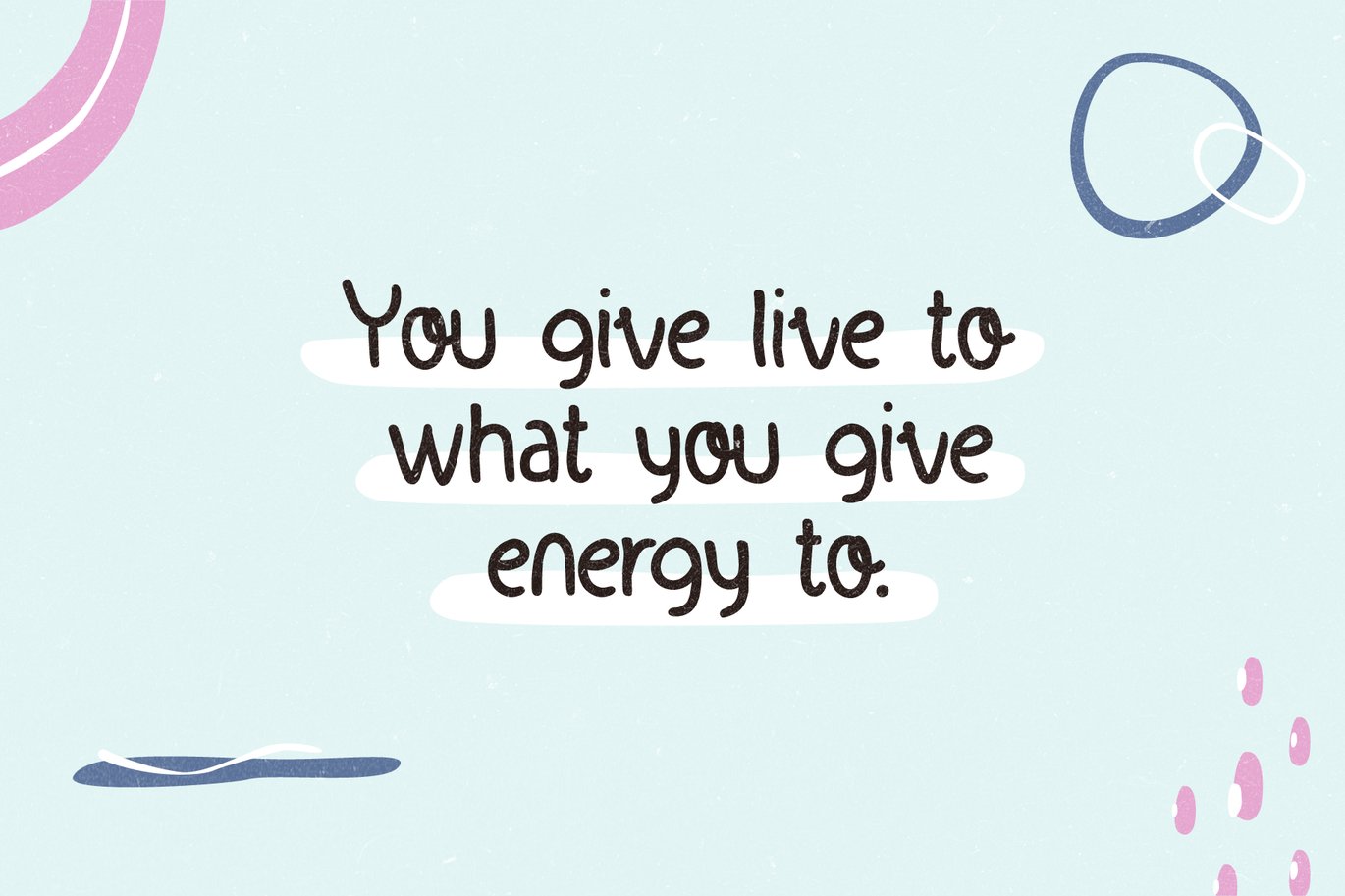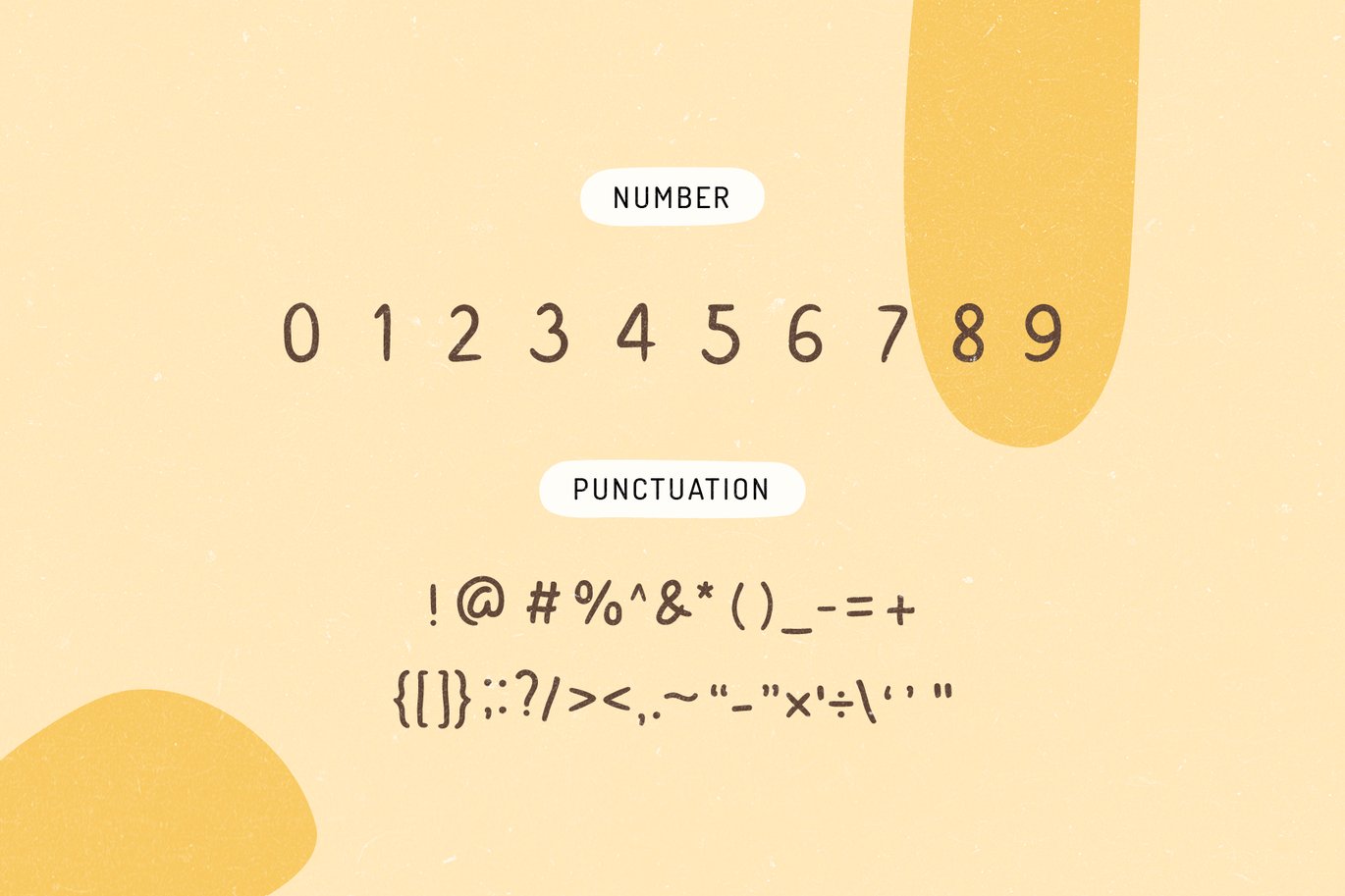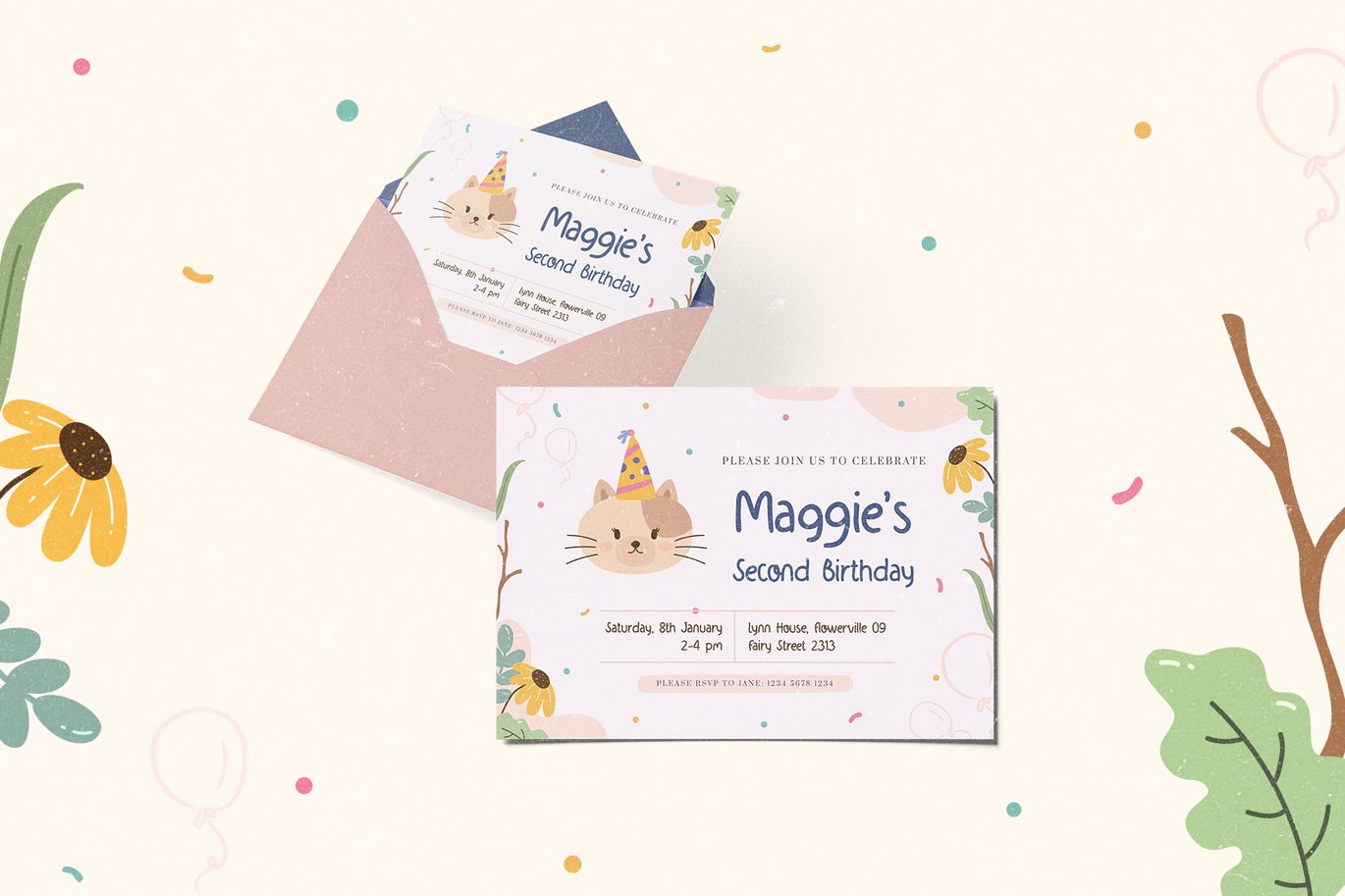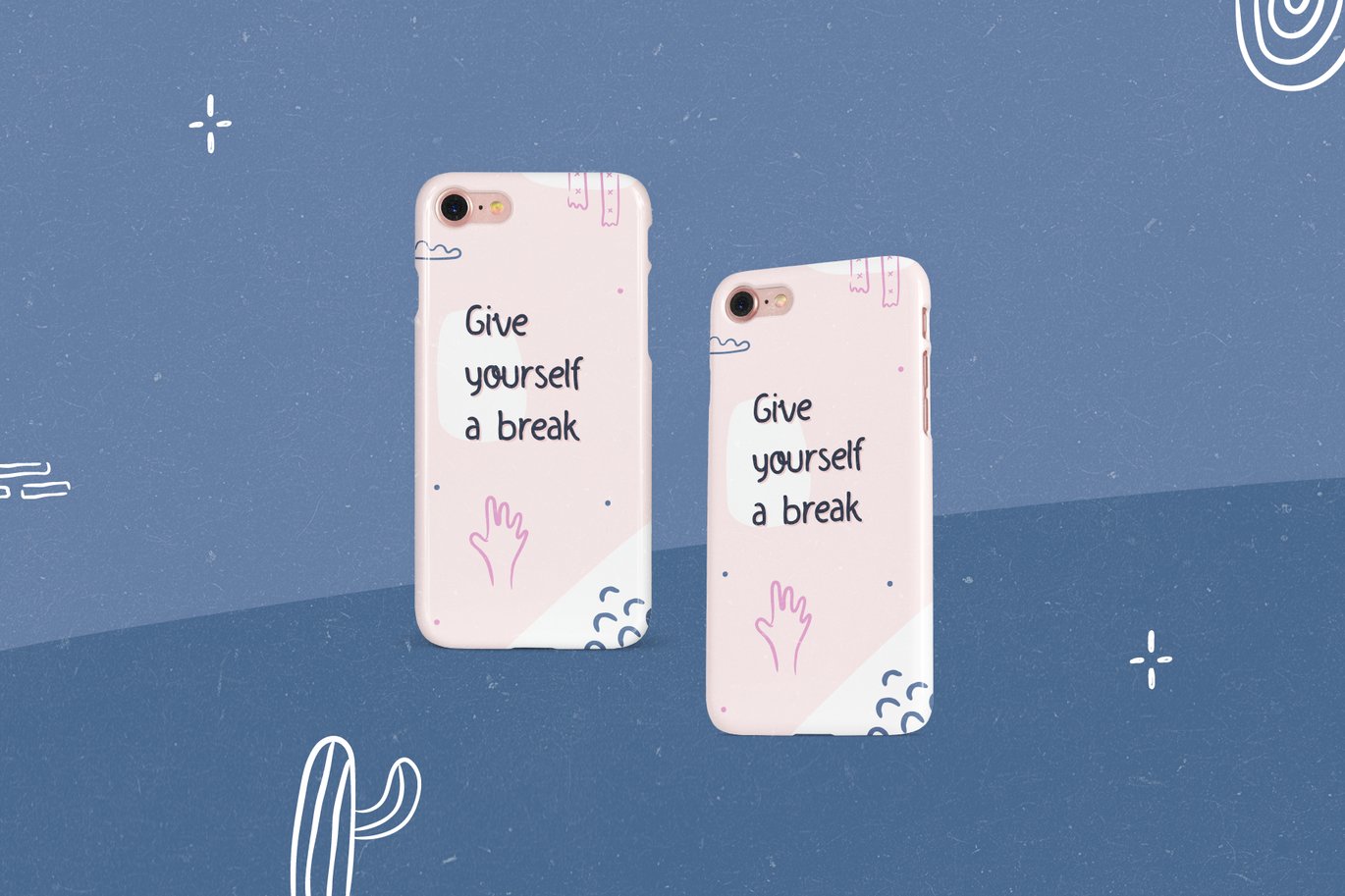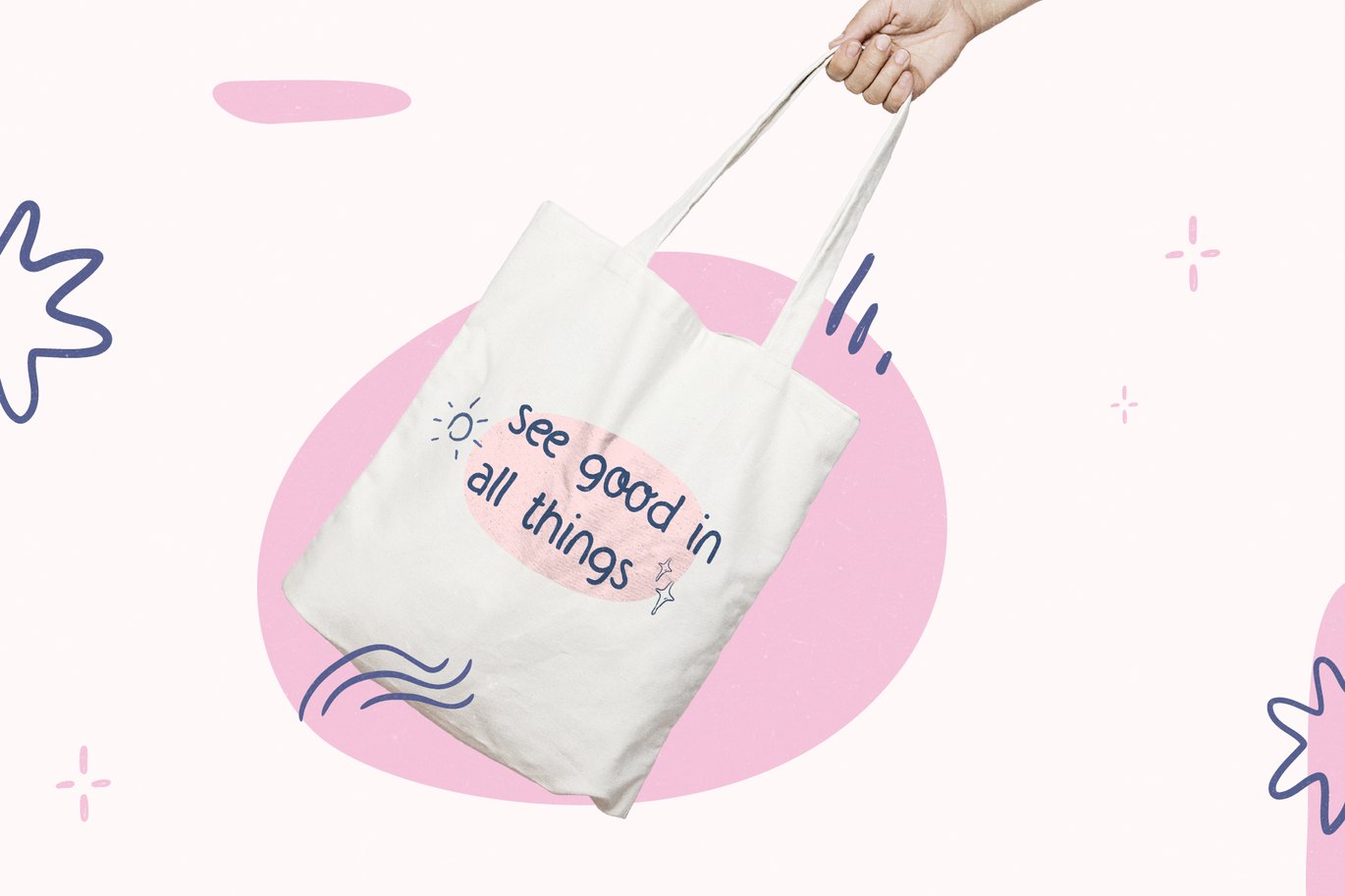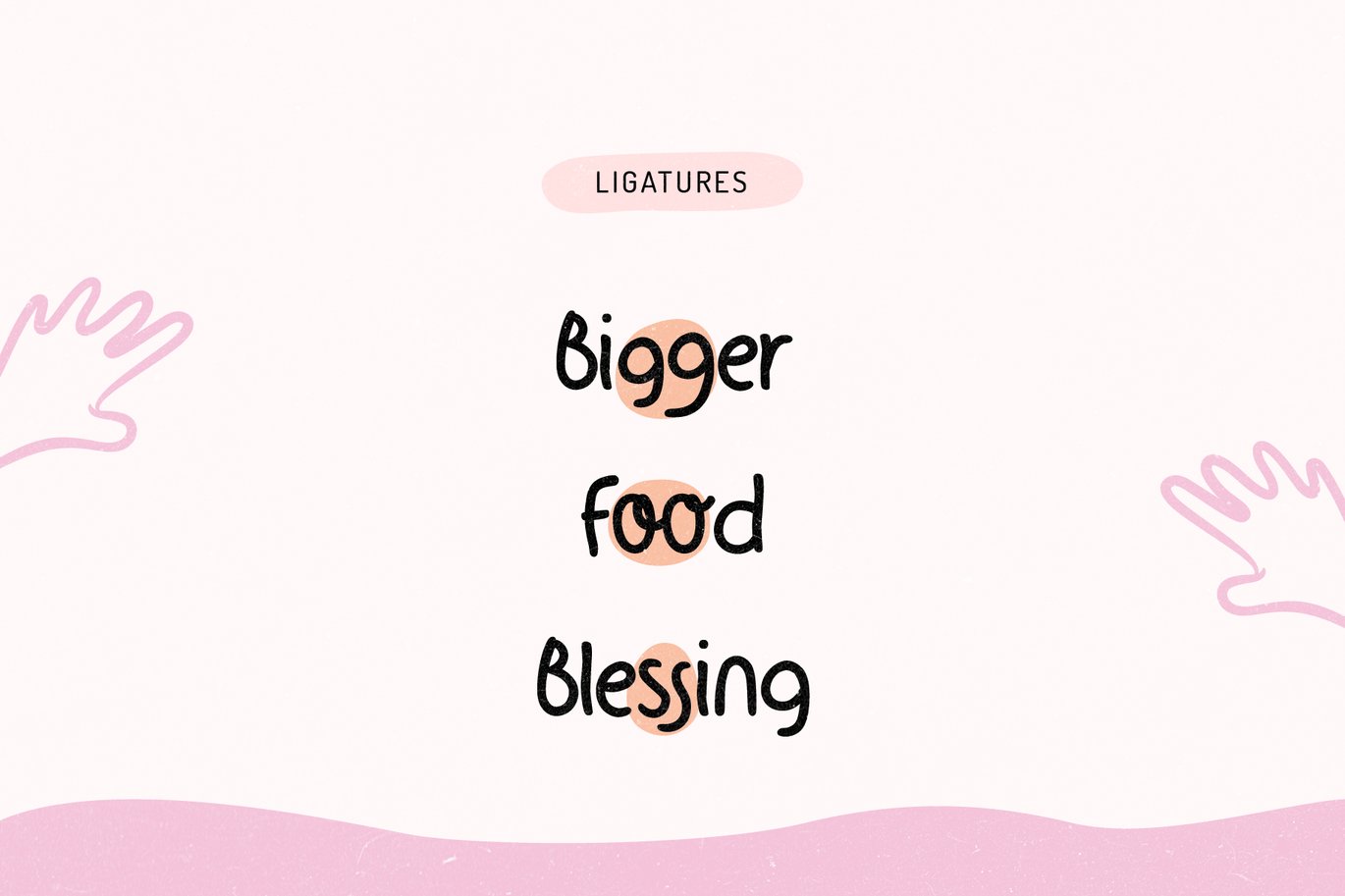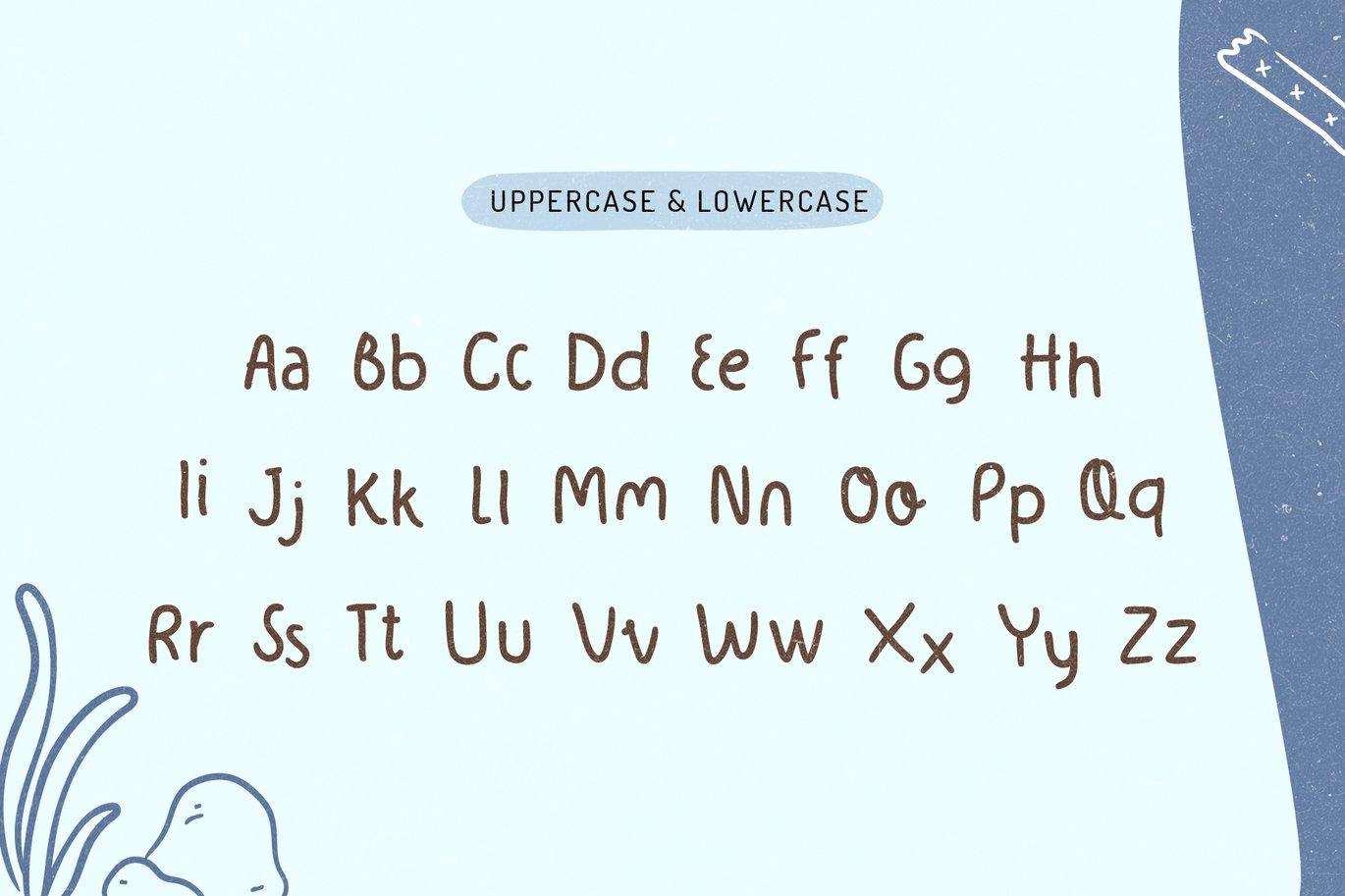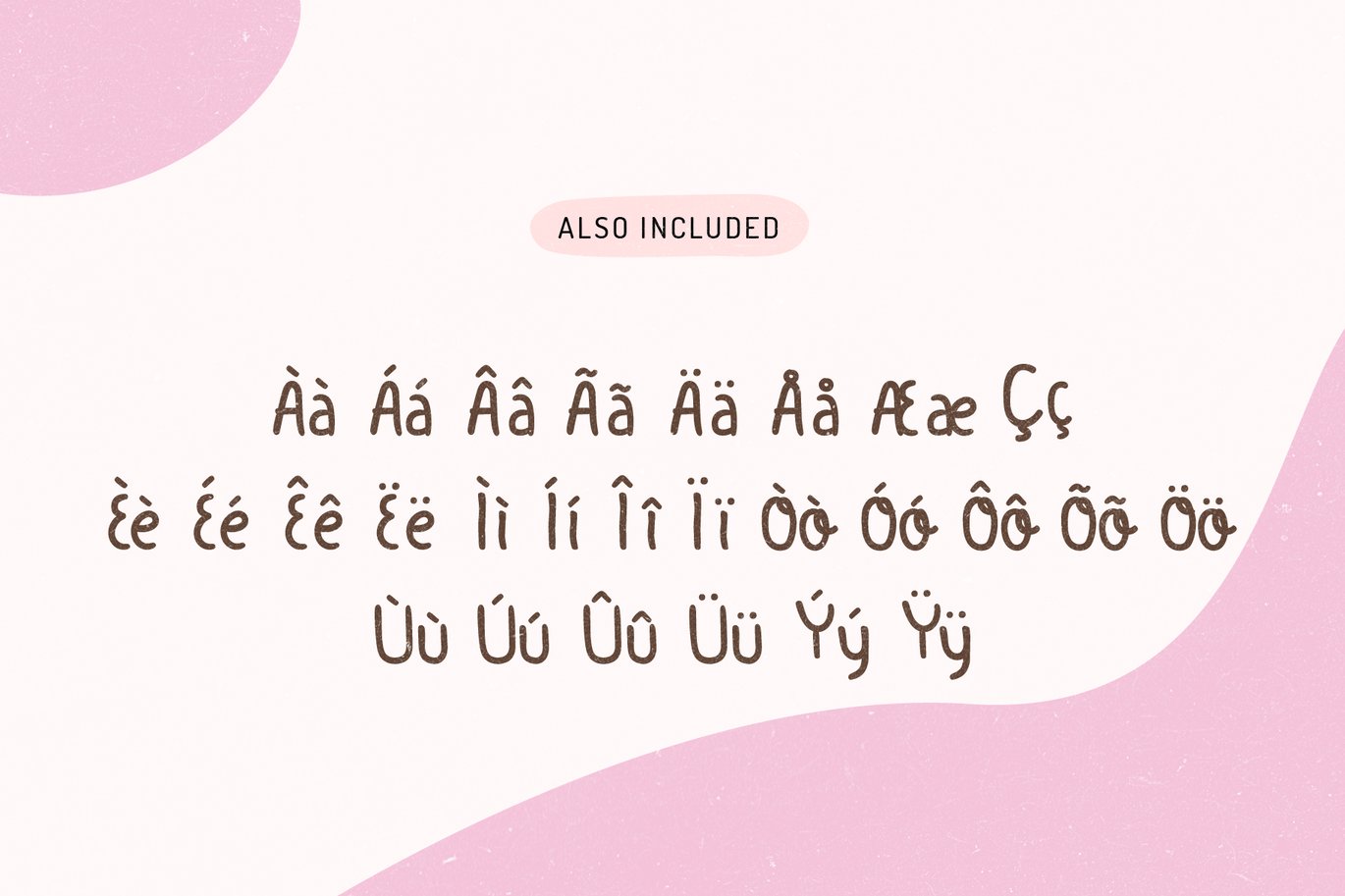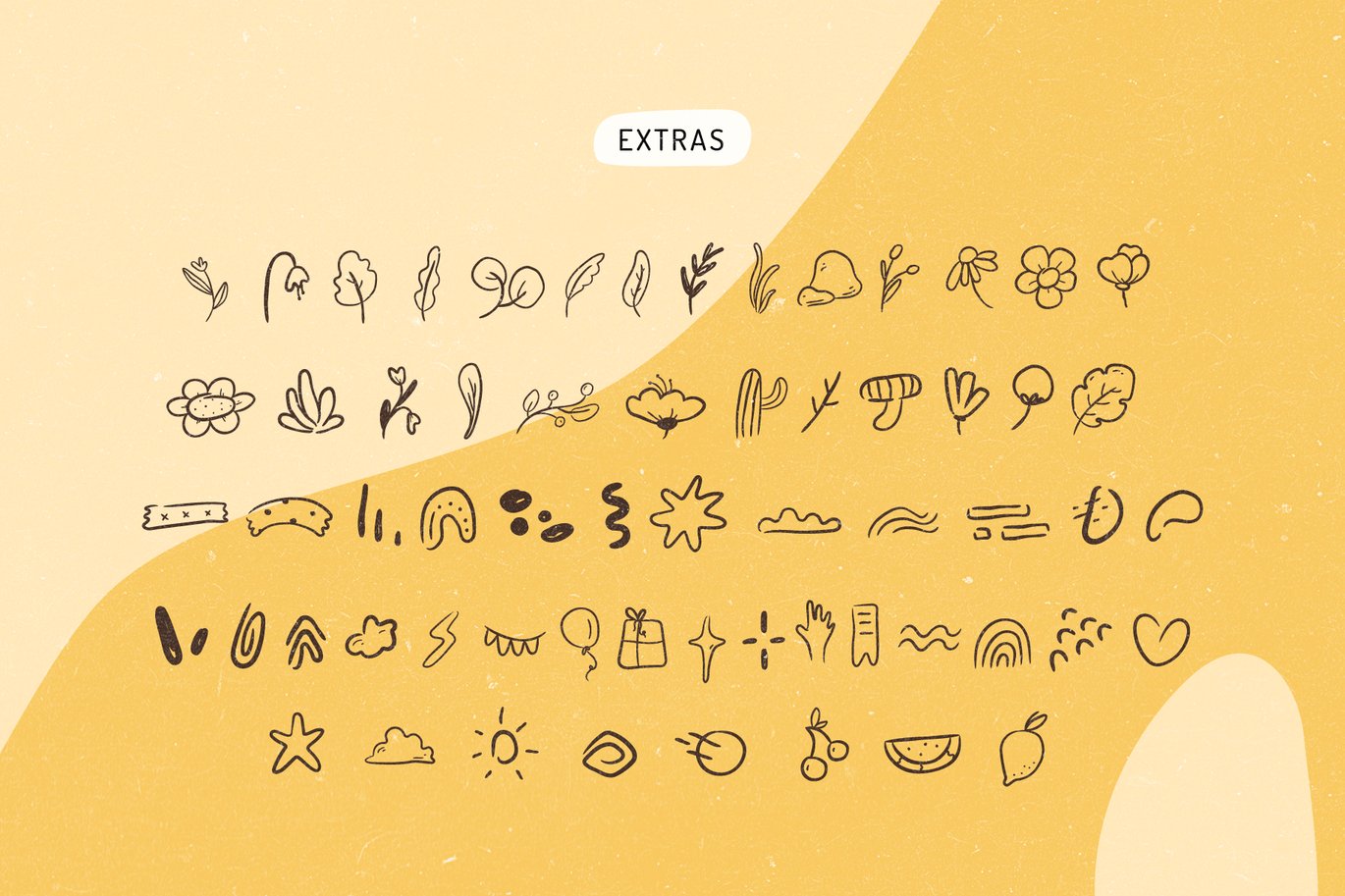
Miggoe – Playful Font with Extra Doodles
Miggoe is a playful font with extra doodles.
It’s perfectly suited for your any cute & educational stuffs!
- Ligatures Character
- Multi-language Characters